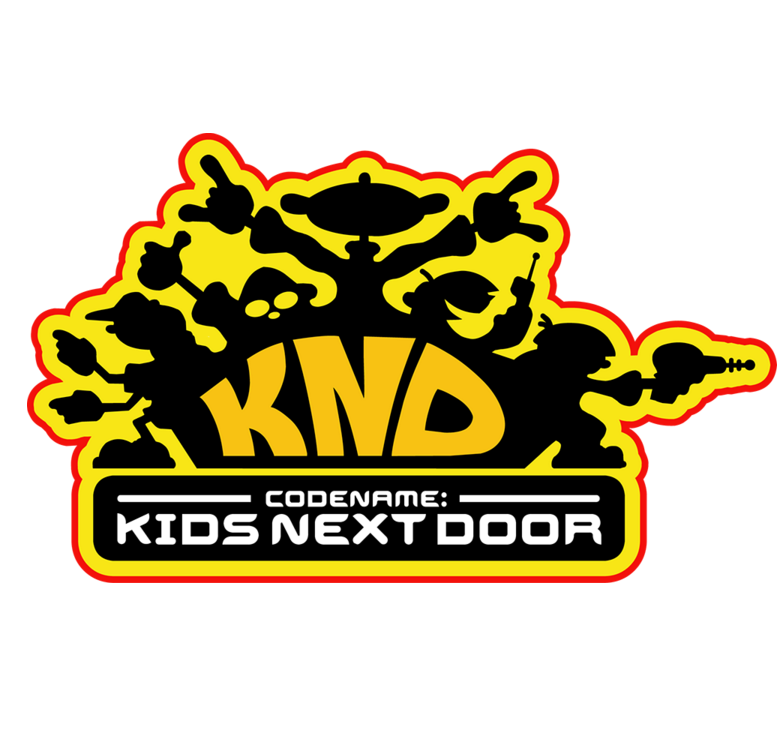
Kids Next Door Font
The Codename: Kids Next Door logo was created using the futuristic sans serif font Aura Regular by Israeli typeface designer Ilan Ronen. There are two versions of the Aura typeface: Regular and Outline, each having an oblique version. You can preview and purchase the fonts here.